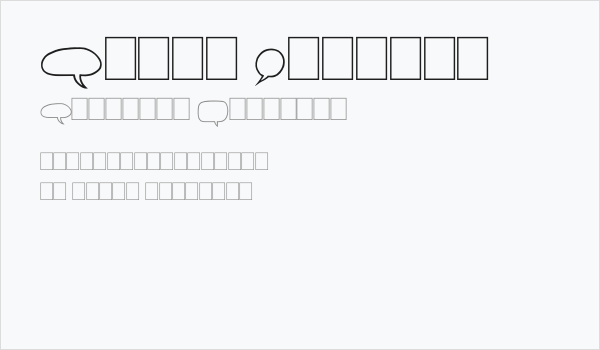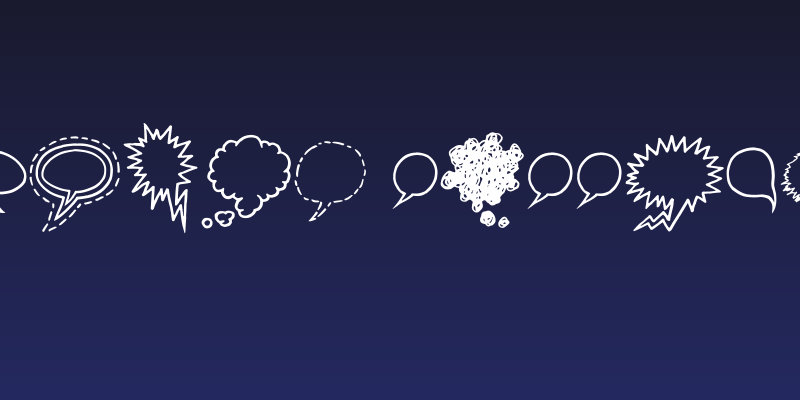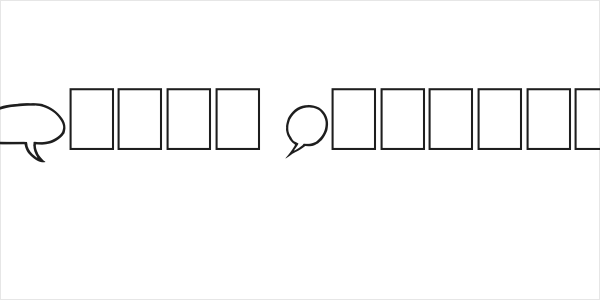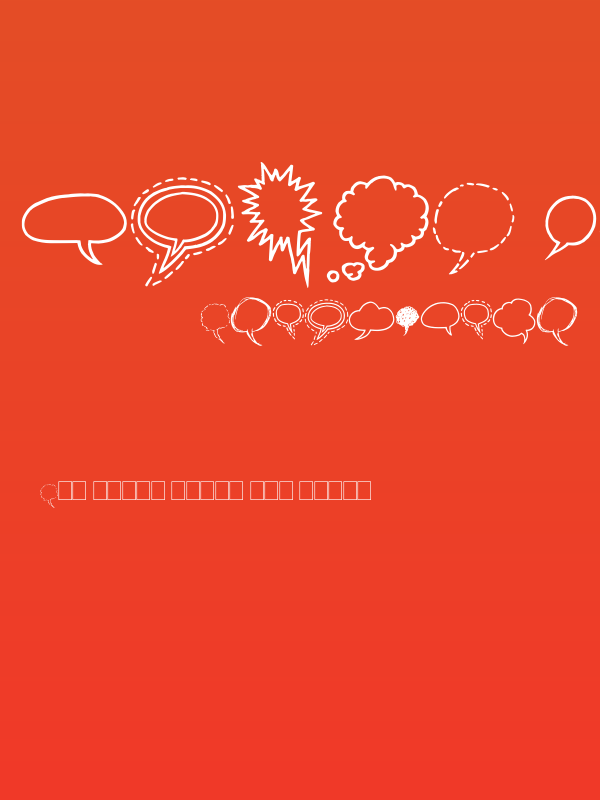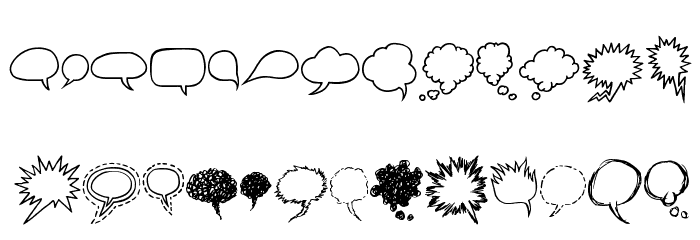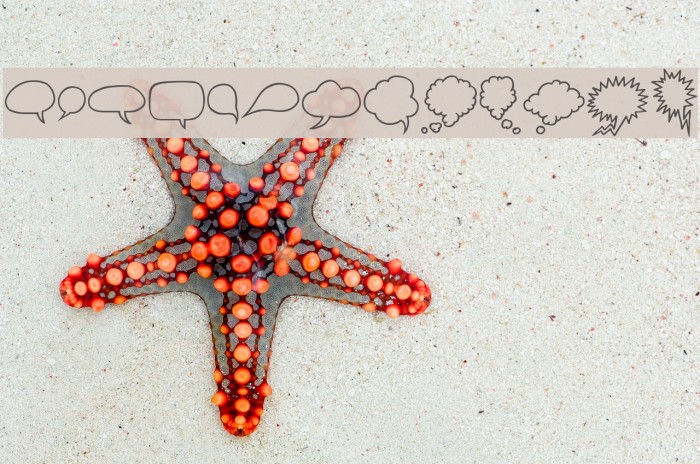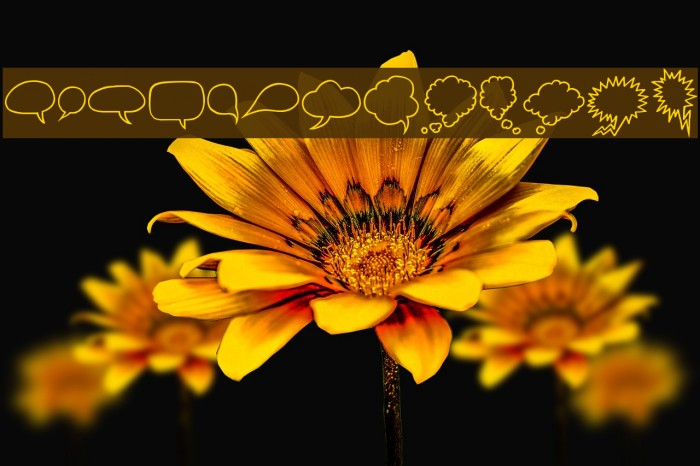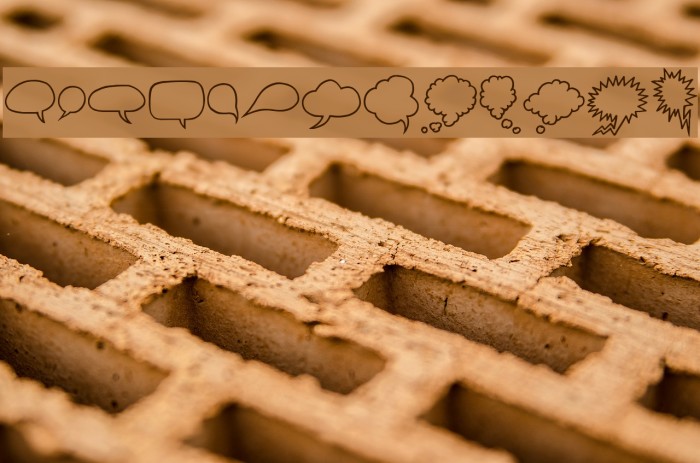
Comix Bubbles Font
Comix Bubbles Description
| Overall Style | Playful, Comic, Decorative |
| Use Case | Speech bubbles, Emphasis in comics, Graphic elements, Visual storytelling |
| Proposed Projects | Comic books, graphic novels, children's books, playful posters, social media graphics, educational materials. |